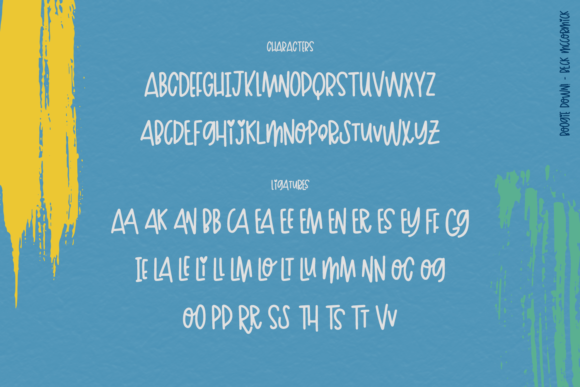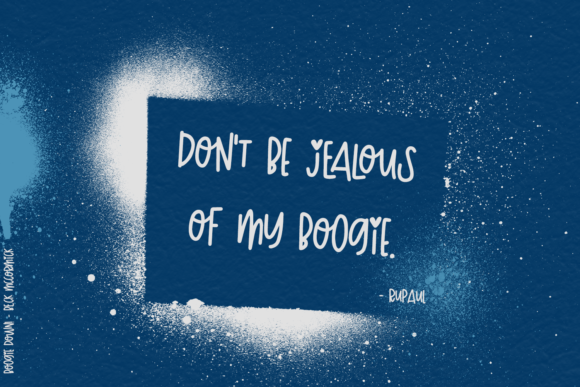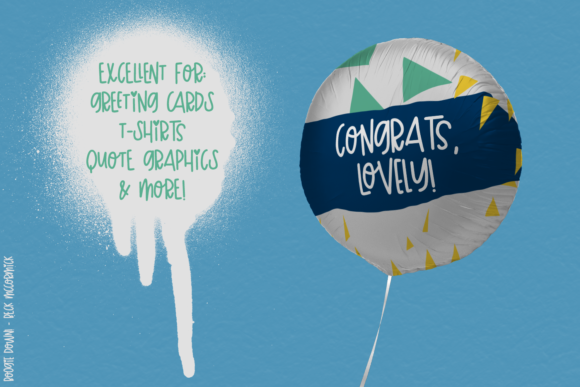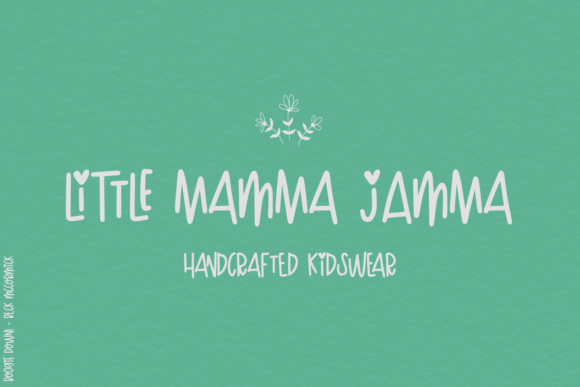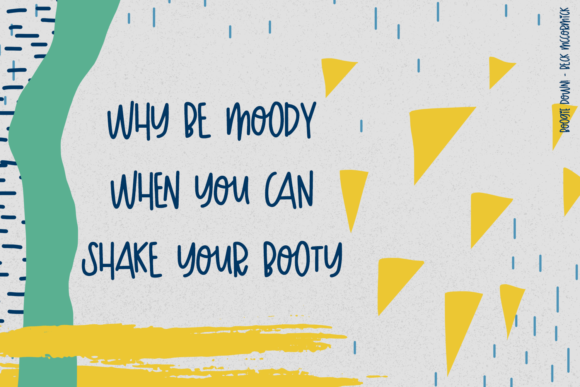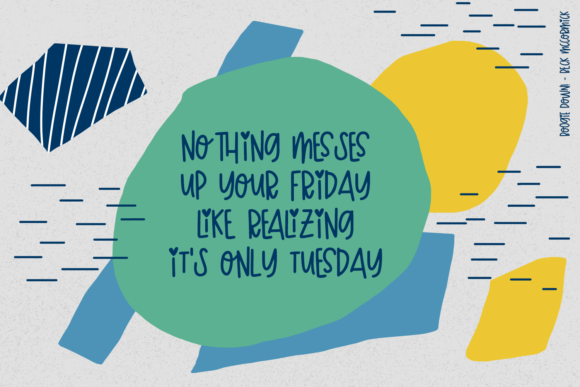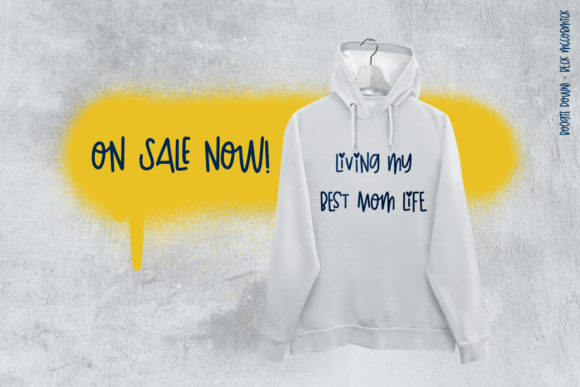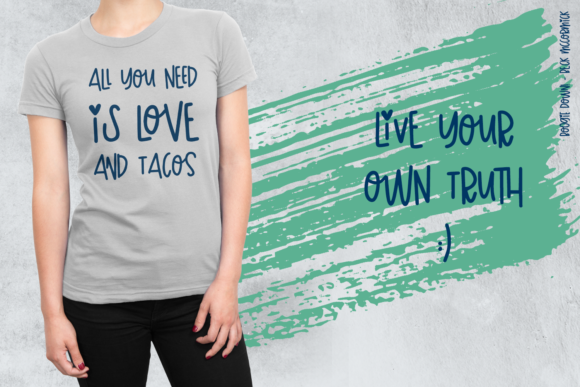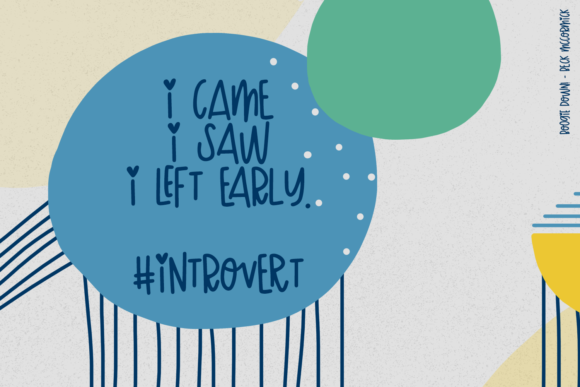
Boogie Down! Font
About Boogie Down! Font
The Boogie Down! is a super playful, hand-printed sans font. It’s perfect for whimsical designs, logos, funky shirts, greeting cards, posters, quotes, and much more!